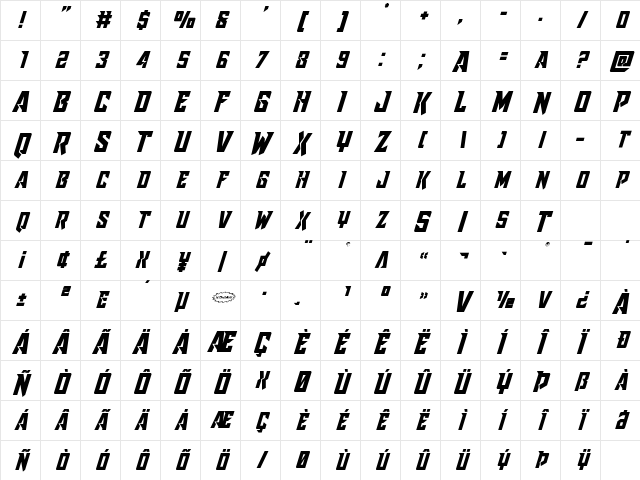
Raider Crusader Regular
Design Context for Raider Crusader
Raider Crusader is a composed and adaptable typeface that performs quietly and consistently across a wide range of design contexts.